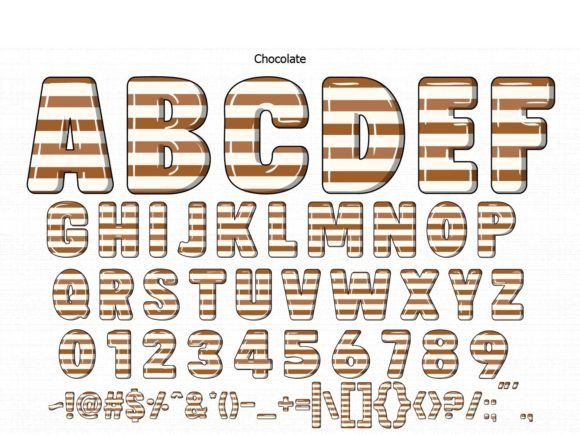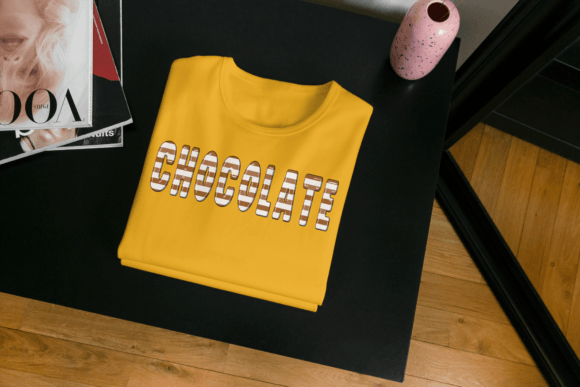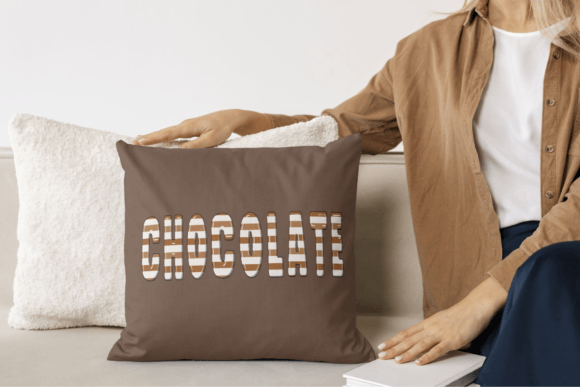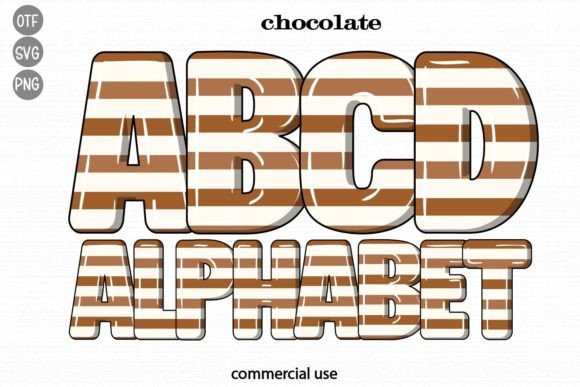
The Deliciously Playful World of Chocolate Font
Are you a designer or crafter looking for a font that can add a touch of playfulness and whimsy to your projects? Look no further than Chocolate Font! This delightful font is perfect for designs that aim to convey a sense of fun and creativity, making it ideal for children’s books, posters, invitations, greeting cards, and more.
What is Chocolate Font?
Chocolate Font is a unique and eye-catching font that features colorful, artistic, and whimsical designs. Its playful feel makes it perfect for projects that require a touch of imagination and creativity. The font comes in two versions: a black version and a color version. The black version is compatible with Cricut Design Space and other cutting machines, making it perfect for crafters and designers who use these tools.
Uses of Chocolate Font
Chocolate Font is a versatile font that can be used in a variety of design projects. Some of the most popular uses of this font include:
- Children’s Books: Chocolate Font is perfect for children’s books, as it creates an engaging and playful reading experience for young audiences. The font’s whimsical and colorful design makes it easy to read and fun to look at.
- Posters and Invitations: The font’s playful feel makes it ideal for posters and invitations, adding a touch of creativity and imagination to your designs.
- Greeting Cards: Chocolate Font is perfect for greeting cards, allowing you to add a personal touch to your messages.
Tips for Using Chocolate Font
To get the most out of Chocolate Font, here are some tips to keep in mind:
- Use it for Headings and Titles: Chocolate Font is perfect for headings and titles, as it adds a touch of playfulness and creativity to your designs.
- Experiment with Colors: The color version of the font offers a range of possibilities for colorful designs. Experiment with different colors to find the perfect combination for your project.
- Pair it with Other Fonts: Chocolate Font can be paired with other fonts to create a unique and interesting design. Try pairing it with a serif font for a contrasting look.
Chocolate Font is a deliciously playful font that’s perfect for designers and crafters looking to add a touch of whimsy to their projects. With its compatibility with various design programs and cutting machines, it’s an excellent choice for a range of applications. Whether you’re creating a children’s book, poster, invitation, or greeting card, Chocolate Font is sure to bring a smile to your audience’s faces.